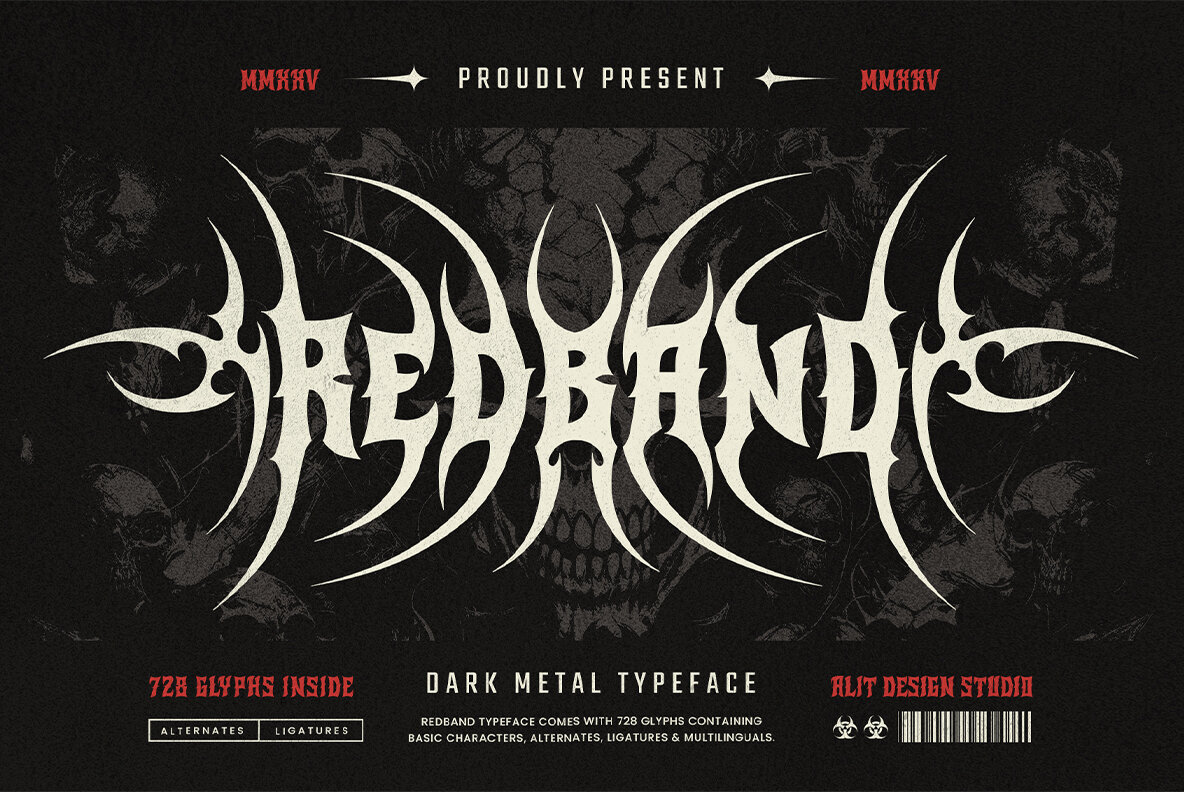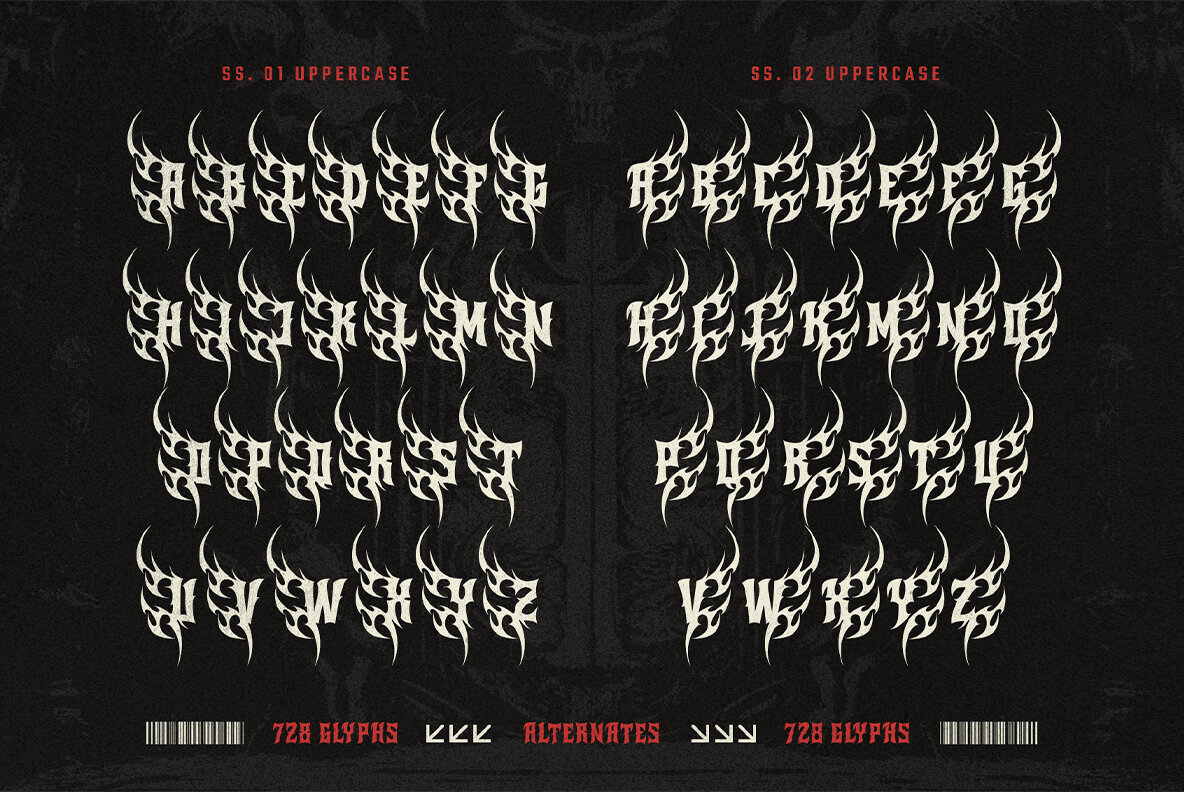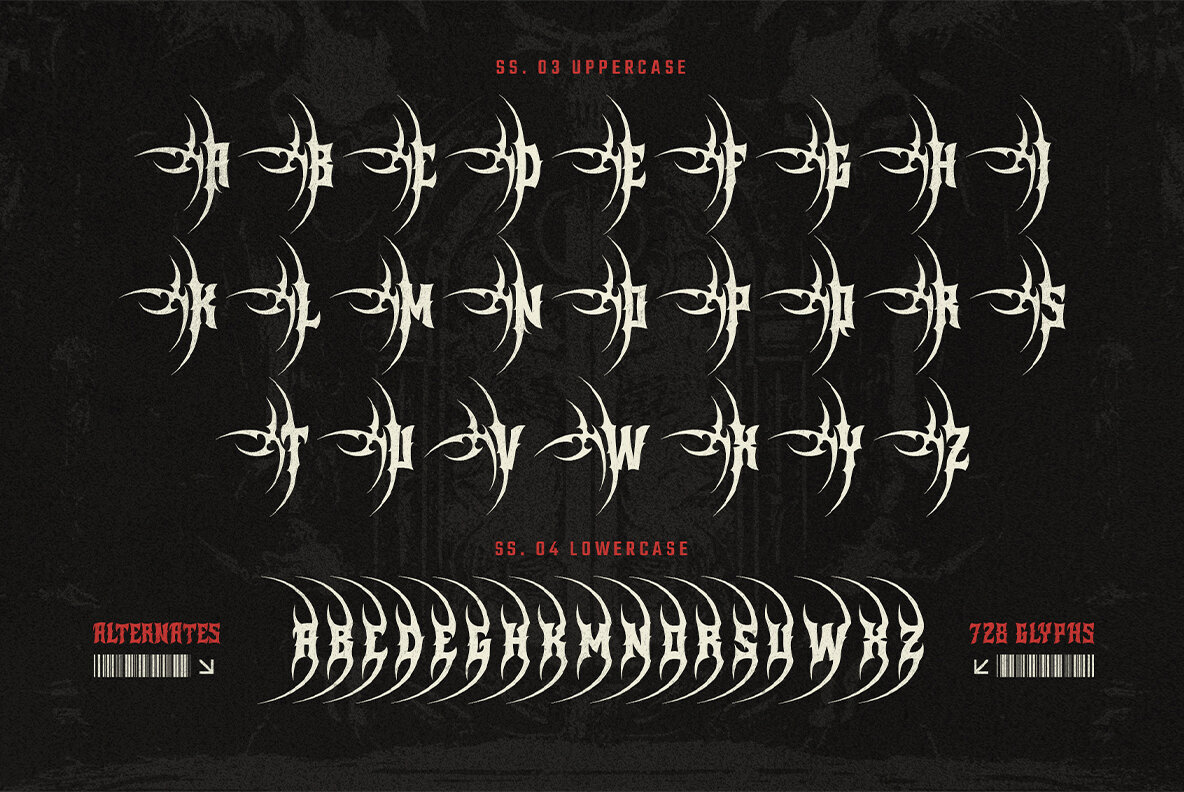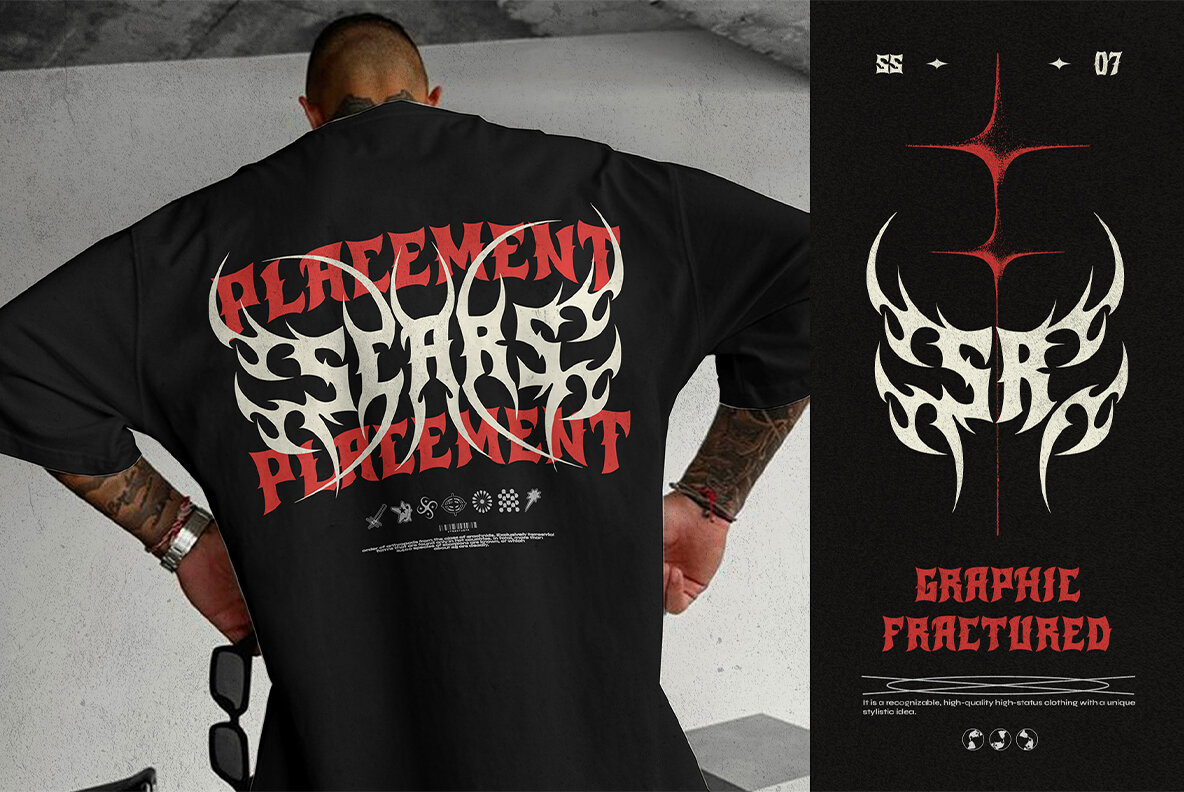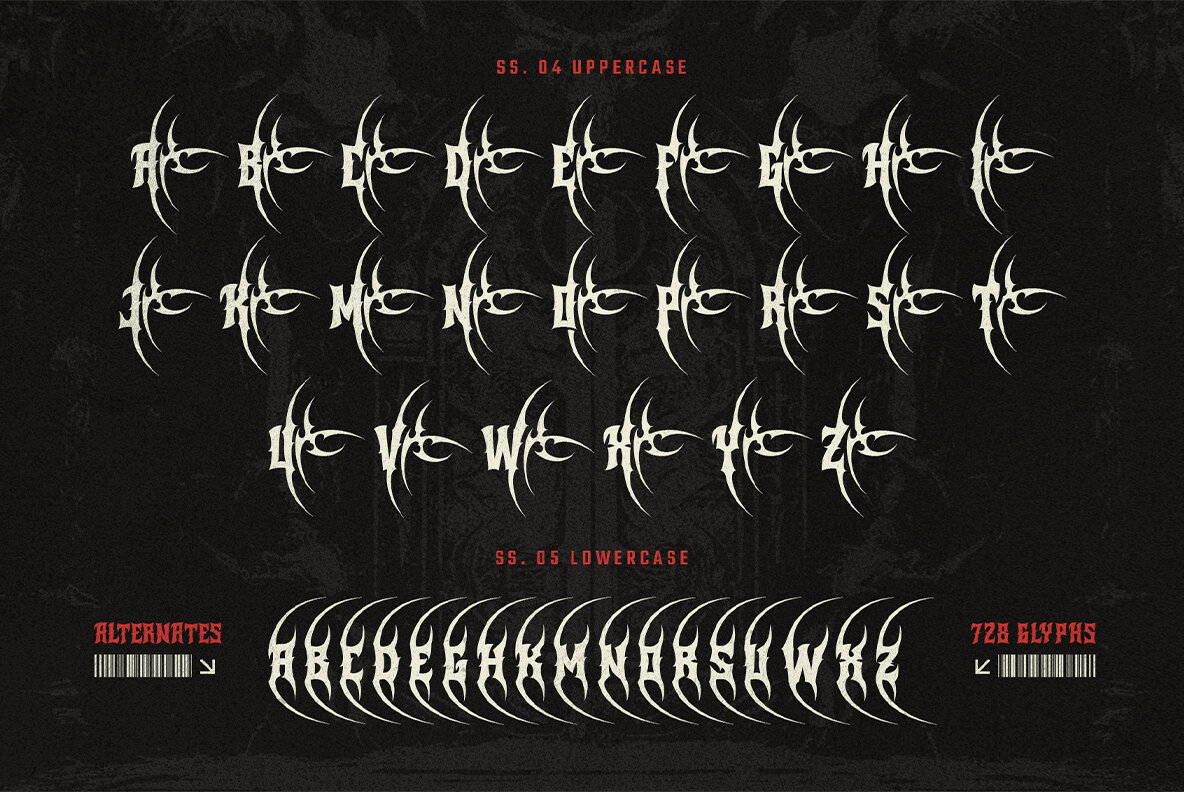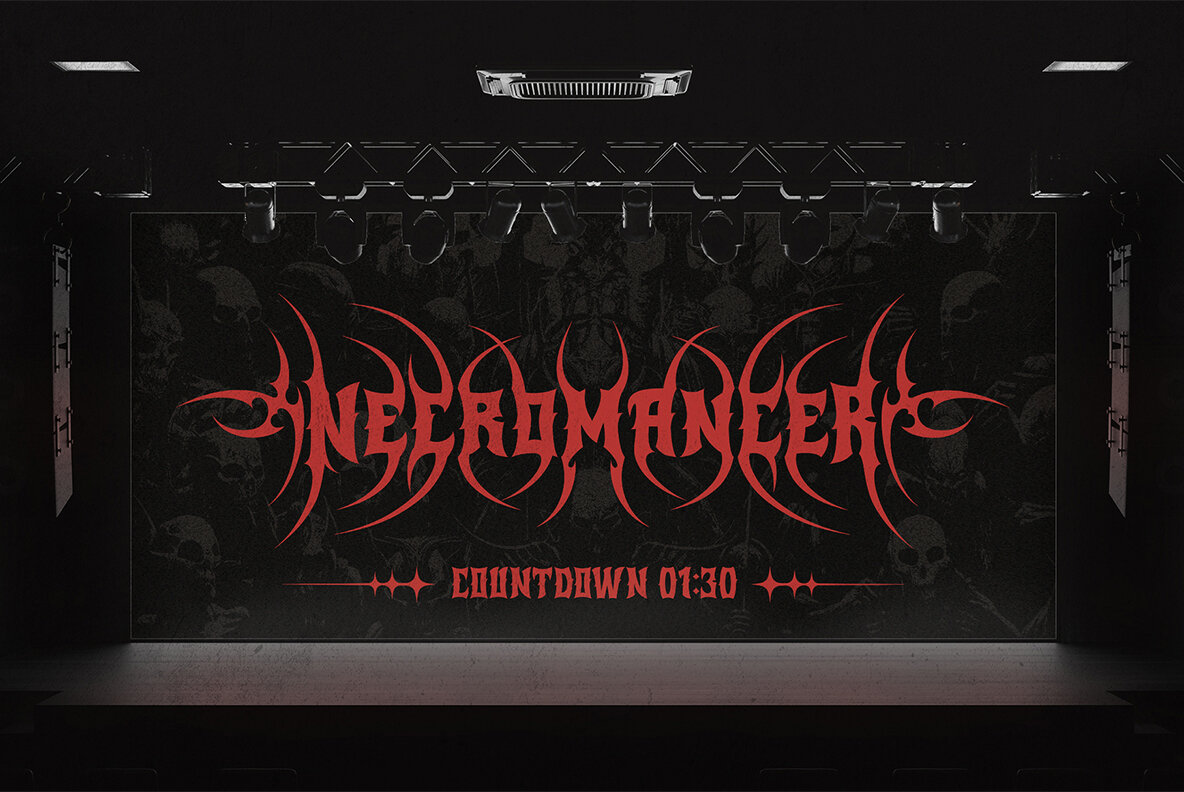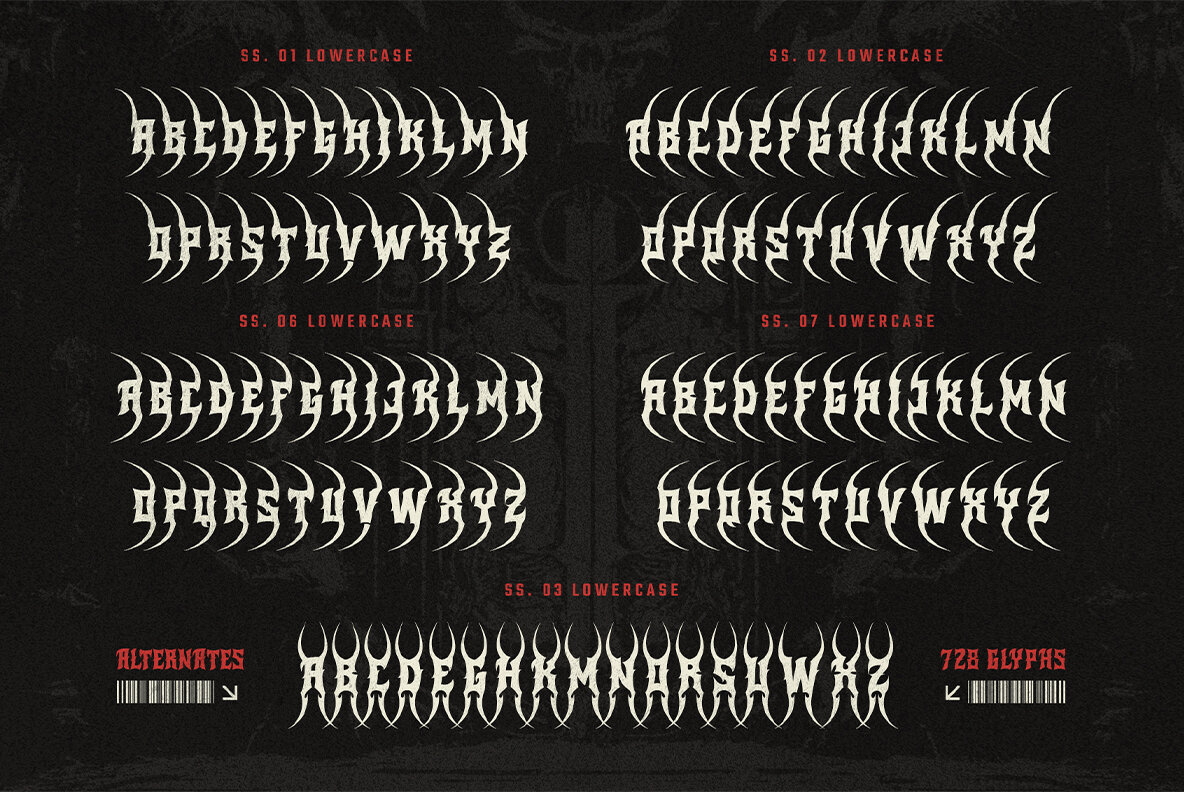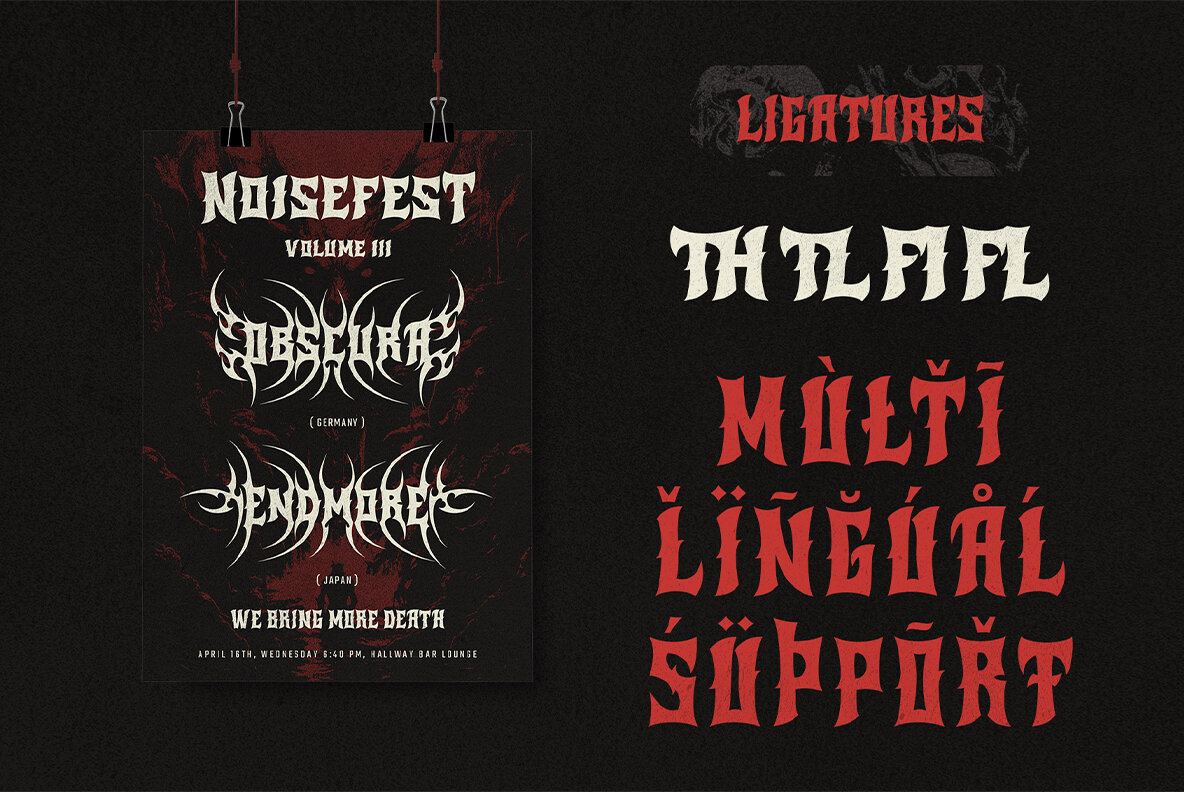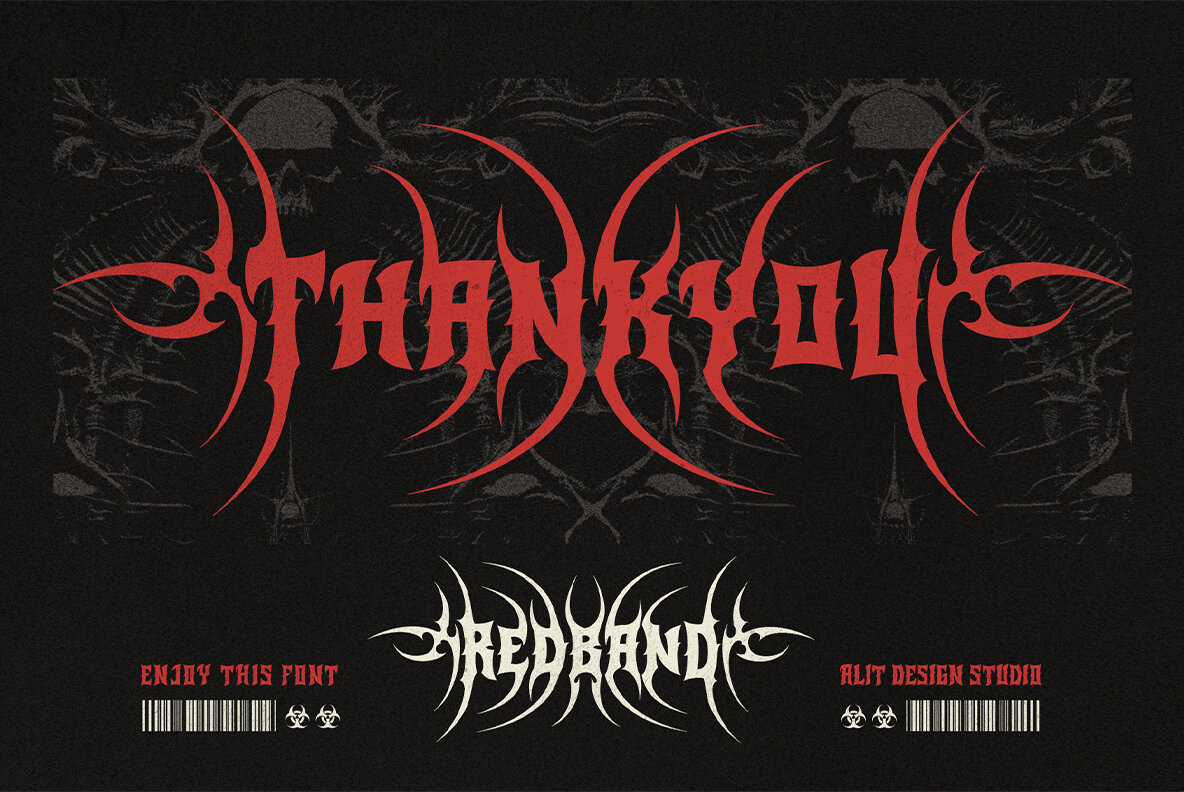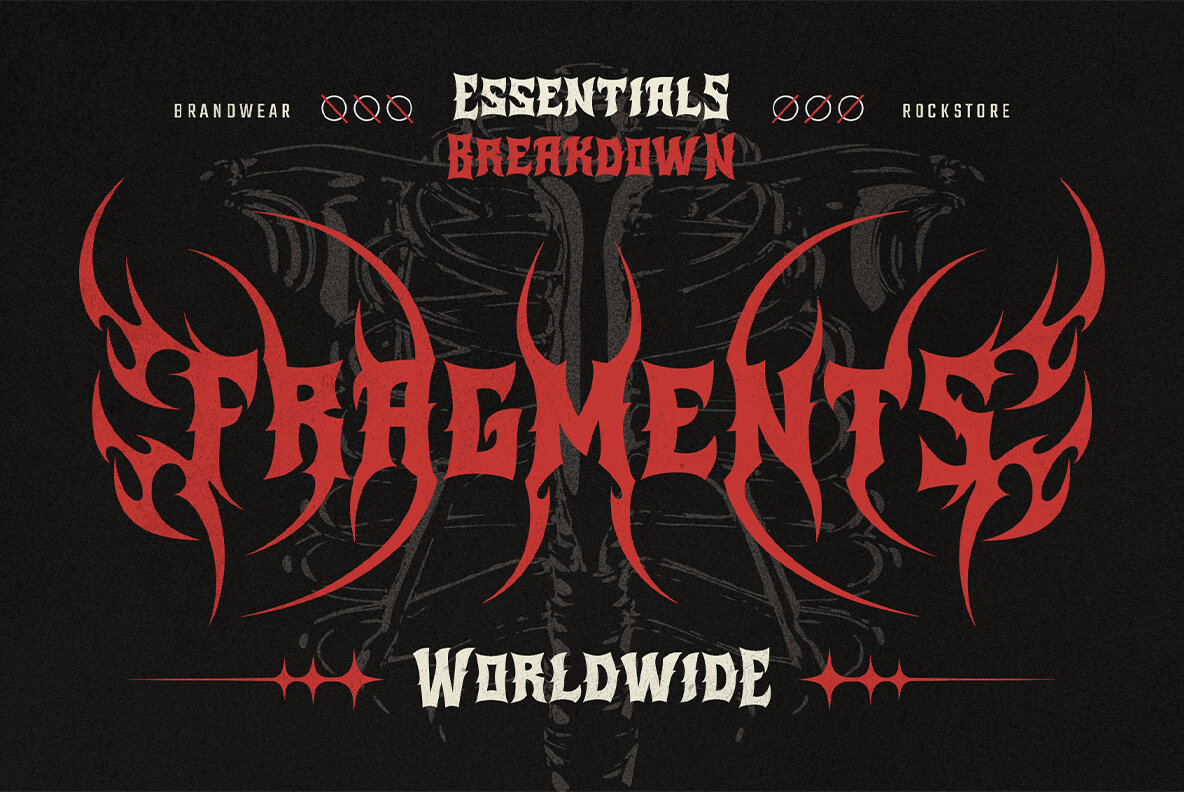
Redband Font
Redband Regular
Red Band Typeface offers a bold entrance into the realm of raw energy and unbridled aggression. Crafted for those who make an impression, it draws inspiration from the chaotic spirit of heavy metal, gothic art, and tribal designs. Featuring thorn-covered letters and razor-sharp tribal swashes, this font embodies rebellion and strength, making it ideal for metal band logos, album covers, and more. Compatible with Adobe Photoshop, Illustrator, Canva, and more, Red Band Typeface is your tool for impactful design. For those ready to stand out with fierce creativity, this typeface dares you to be bold.Red Band Typeface: Embrace the Power of Metal Typography